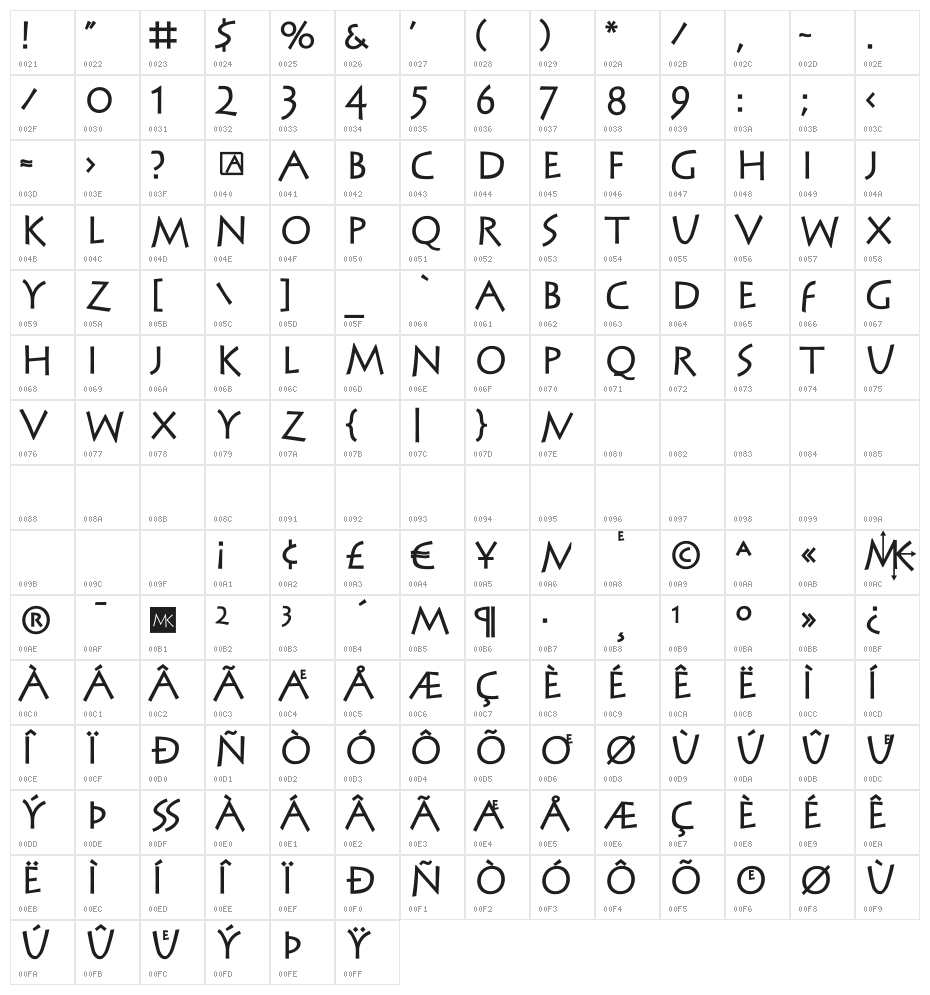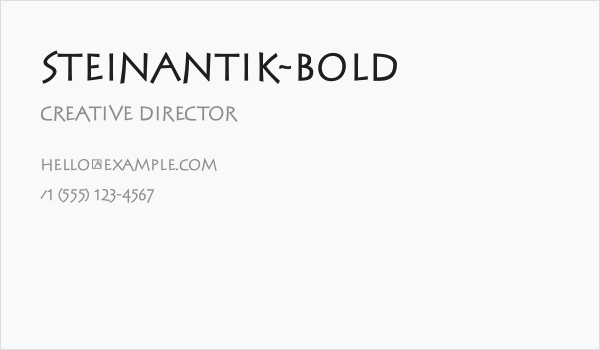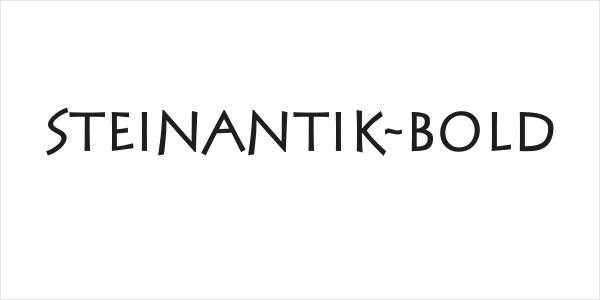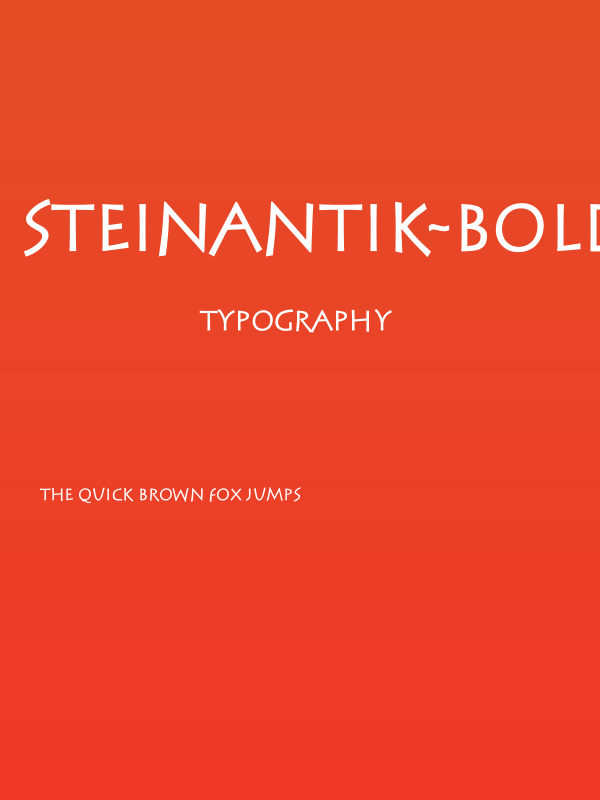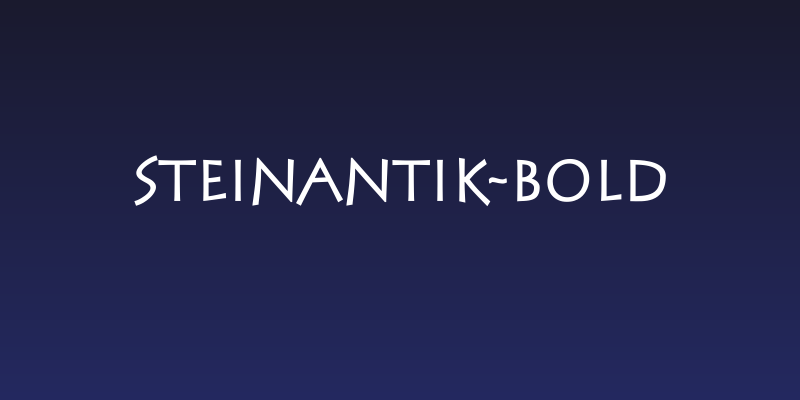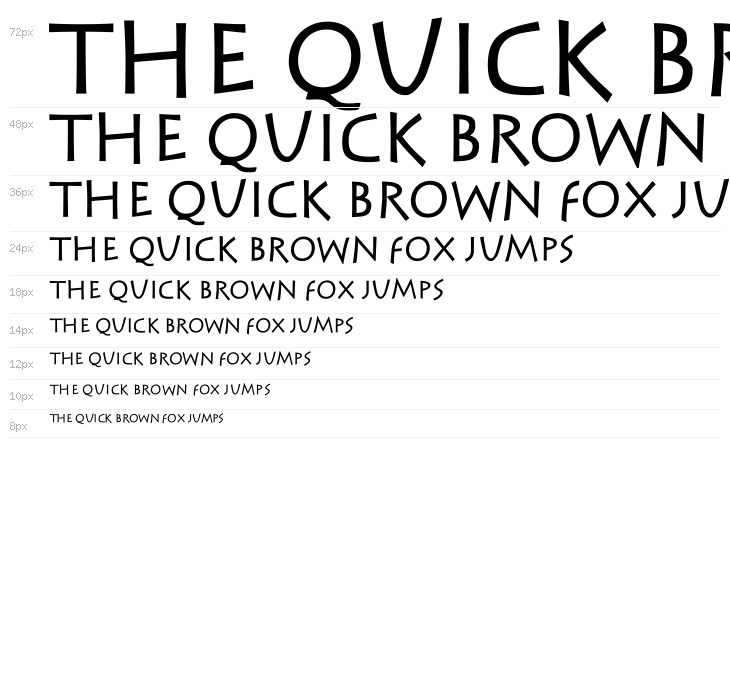
SteinAntik-Bold Font
SteinAntik-Bold Description
This font features a bold and distinctive style with a strong presence. The characters are designed with sharp, angular lines and a slight curvature that adds a unique flair. The uppercase letters are particularly striking, with a consistent height and width that create a harmonious appearance. The lowercase letters maintain the same boldness, ensuring readability and visual impact. Numbers are clear and well-defined, making them suitable for various applications. Special characters are crafted with the same attention to detail, providing a cohesive look across all elements. The overall design is modern yet retains a classic touch, making it versatile for different design needs.